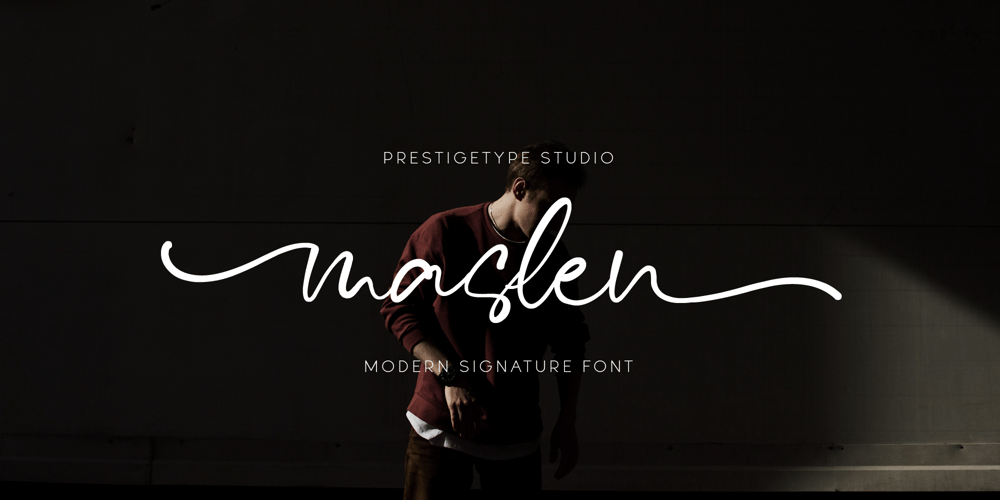
Maslen Font Family was designed by Mohamad Ridwan and published by Prestigetype Studio. Maslen contains 1 styles and family package options. Maslen is a modern and classy signature font designed with a artsy touch. Perfect use for classy visual brand identities, watermark on photography, signature or signature logo design, quotes, logos, headlines, titles, labels, websites, stationery, business cards, or any advertising purposes.Maslen includes: Uppercase and lowercase Numbers and punctuation Multilingual Alternates Ligatures We highly recommend using a program that supports OpenType features and Glyphs panels like many Adobe apps and Corel Draw so you can see and access all Glyph variations.We hope you enjoy our font – please do let us know by emailing us at info@prestigetype.com or prestigetypestudio@gmail.com if you need something!